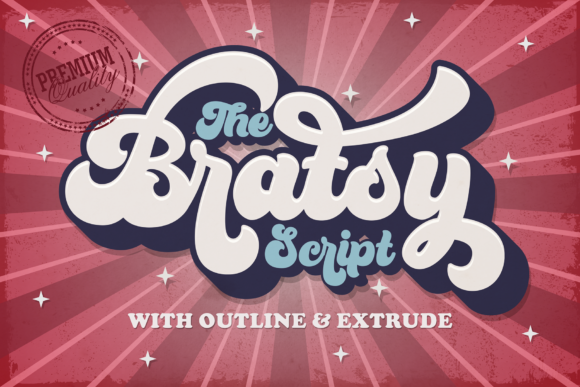
Bratsy Font: A Layered Retro Script with a Vintage Feel
Are you looking for a unique typeface that can add a touch of nostalgia to your designs? Look no further than the Bratsy Font, a layered retro script with a vintage feel that’s sure to transport you back in time. In this article, we’ll take a closer look at the Bratsy Font, its features, and how you can use it to add a touch of nostalgia to your designs.
What is Bratsy Font?
Bratsy Font is a layered retro script typeface that is designed to evoke a sense of nostalgia and vintage charm. With its unique layered design, Bratsy Font is perfect for adding a touch of elegance and sophistication to any design project. Whether you’re working on a branding project, a packaging design, or a digital project, Bratsy Font is sure to make your designs stand out.
Features of Bratsy Font
So, what makes Bratsy Font so special? Here are just a few of its key features:
- Layered Design: Bratsy Font features a unique layered design that gives it a 3D effect. This layered design allows you to customize the font to your liking, adding depth and texture to your designs.
- Retro Script Style: Bratsy Font is a retro script typeface that is inspired by vintage typography. Its classic design makes it perfect for adding a touch of nostalgia to your designs.
- Vintage Feel: Bratsy Font has a distinctly vintage feel that is sure to transport you back in time. Its unique design makes it perfect for use in designs that require a touch of elegance and sophistication.
- Unique and Quirky: Bratsy Font is a unique and quirky typeface that is sure to make your designs stand out. Its distinctive design makes it perfect for use in a variety of design projects, from branding and packaging to digital design.
How to Use Bratsy Font
So, how can you use Bratsy Font in your designs? Here are a few ideas to get you started:
- Branding and Packaging: Bratsy Font is perfect for use in branding and packaging design. Its unique design makes it a great choice for adding a touch of elegance and sophistication to your brand identity.
- Digital Design: Bratsy Font is also a great choice for digital design projects, such as website design, social media graphics, and email marketing campaigns.
- Print Design: Bratsy Font can also be used in print design projects, such as brochures, flyers, and posters.
- Signage and Display: Bratsy Font is also perfect for use in signage and display design, such as store signs, billboards, and exhibition displays.
Tips for Using Bratsy Font
Here are a few tips for using Bratsy Font in your designs:
- Use it Sparingly: Bratsy Font is a bold and eye-catching typeface, so it’s best to use it sparingly. Use it to add emphasis to key messages or to create visual interest in your designs.
- Pair it with Other Fonts: Bratsy Font can be paired with other fonts to create a unique and visually appealing design. Try pairing it with a clean sans-serif font to create contrast.
- Experiment with Colors: Bratsy Font looks great in a variety of colors, so don’t be afraid to experiment. Try using it in bold and bright colors to create a statement piece.
- Pay Attention to Legibility: Bratsy Font is a decorative typeface, so it’s not always the most legible. Make sure to test it in different sizes and resolutions to ensure it remains legible.
Benefits of Using Bratsy Font
So, what are the benefits of using Bratsy Font in your designs? Here are a few:
- Adds a Touch of Nostalgia: Bratsy Font adds a touch of nostalgia to your designs, making them more memorable and engaging.
- Unique and Eye-Catching: Bratsy Font is a unique and eye-catching typeface that is sure to make your designs stand out.
- Customizable: Bratsy Font is highly customizable, allowing you to adjust the layers and colors to your liking.
- Elegant and Sophisticated: Bratsy Font adds an air of elegance and sophistication to your designs, making them perfect for high-end brands and luxury products.
In conclusion, Bratsy Font is a unique and eye-catching typeface that is perfect for adding a touch of nostalgia and elegance to your designs. With its layered retro script design, Bratsy Font is sure to make your designs stand out. Whether you’re working on a branding project, a packaging design, or a digital project, Bratsy Font is a great choice. So why not give it a try and see how it can elevate your designs?
- What is Bratsy Font? Bratsy Font is a layered retro script typeface with a vintage feel.
- What is Bratsy Font used for? Bratsy Font can be used in a variety of design projects, including branding, packaging, digital design, print design, signage, and display.
- Is Bratsy Font customizable? Yes, Bratsy Font is highly customizable, allowing you to adjust the layers and colors to your liking.
- Is Bratsy Font legible? Bratsy Font is a decorative typeface, so it’s not always the most legible. Make sure to test it in different sizes and resolutions to ensure it remains legible.